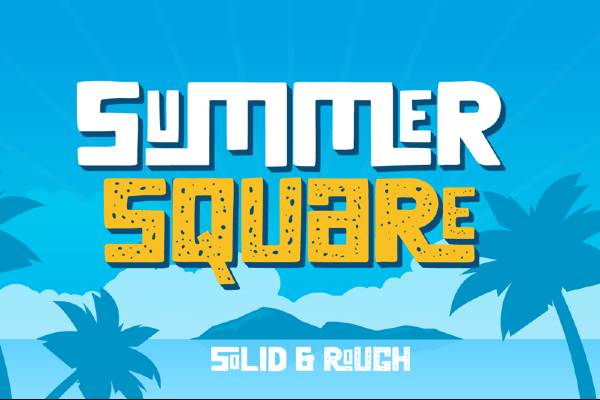
Square fonts have been around for quite some time, thanks to the age of technology these fonts have grown to become very well-recognized font styles that have been used across a wide array of areas. Square fonts have been used in logos, invitations, and even as part of artistic design projects and websites. Square fonts are known for being easy to read and fairly uniform in layout. Our square font generator is great for those looking to add some flair to a project. Whether you want something big and bold or small and discreet, there's bound to be a square font to suit your needs.